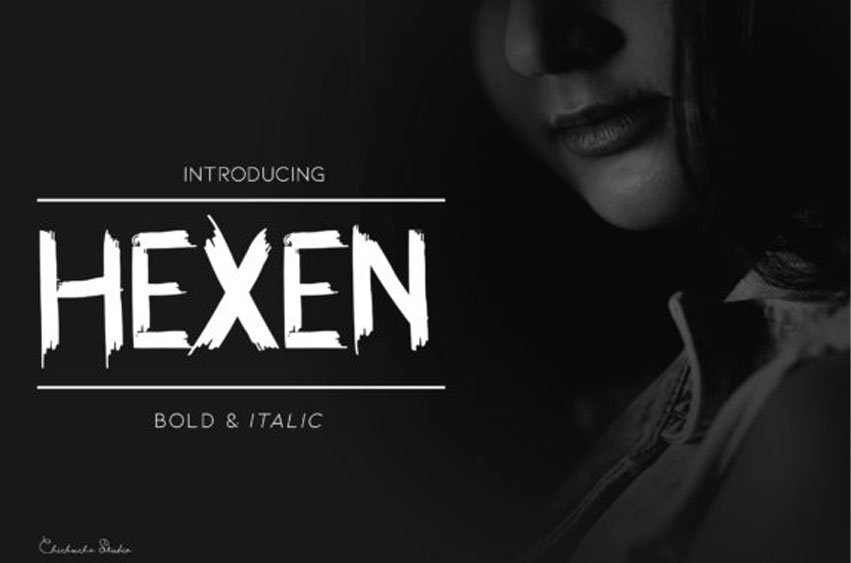
Hexen Font is a raw and strong display font that comes in both bold and italic.
It is suitable for flyers, posters, novels, letterheads, or any design requirements you want to be awesome.